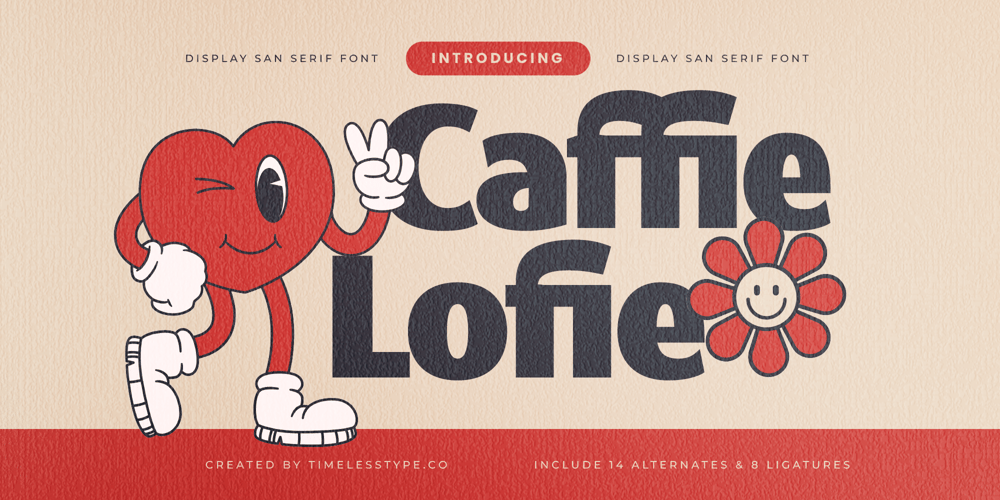
Caffie Lofie
Caffie Lofie font
Caffie Lofie Font Family was designed by Heru Utama Putra and published by Timelesstype Studio. Caffie Lofie contains 2 styles and family package options. Caffie Lofie – Display Sans Serif Font , from Timelesstype , Suitable for any projects such as: logos, branding projects, homeware designs, product packaging, mugs, quotes, posters, shopping bags, t-shirts, book covers, name card, invitation cards, greeting cards, label, photography, watermark, special events, and all your other luxury and beautiful projects that need a Luxury Serif taste.